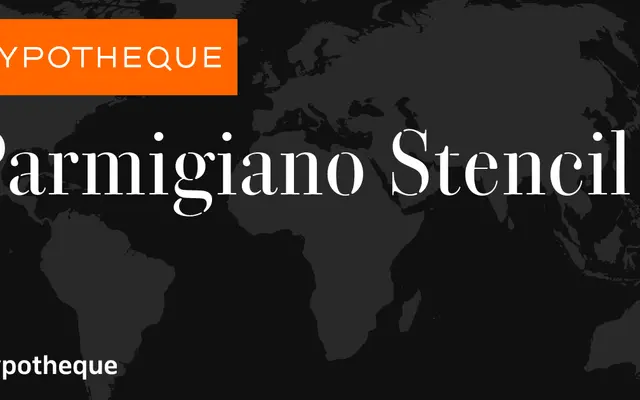
Parmigiano Stencil
A stencil adaptation of Typotheque's Parmigiano family, bringing high-contrast serif forms to display use across five weights.
Built on the classical proportions of Typotheque's Parmigiano series, this stencil variant translates Bodoni-inflected letterforms into a cut format suited to display work. Five weights run from Light to Black, each carrying the characteristic contrast and elegance of the parent family while introducing the graphic interruptions of stencil construction. Latin script is supported throughout.
A stencil variant of the Parmigiano family, which draws from classical Bodoni-style high-contrast serif letterforms. The stencil cuts make it a display typeface by function and intent.